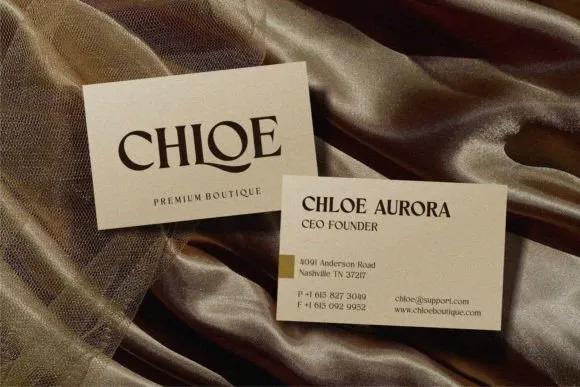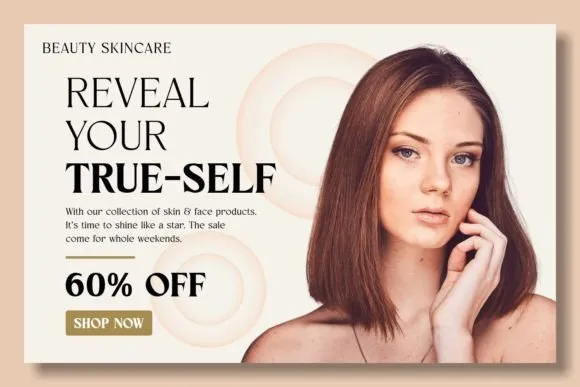
Fancyou Font is a tasteful classic enlivened serif typeface with current extents comprising of 8 styles. Fancyou textual styles are described by sharp serifs that bring a chic vibe. You can involve these textual styles in current one of a kind plans.
These text styles are ideally suited for some undertakings, for example, logos, marking character, magazines, business cards, banners, sites, and some more.